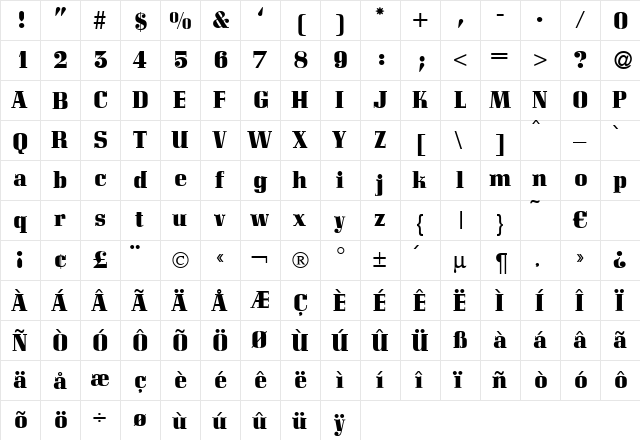
CorvetteDB Bold Font Preview
CorvetteDB Bold
CorvetteDB Bold Font Details
Design Context for CorvetteDB Typeface
CorvetteDB takes a measured approach to typography — its balanced proportions and neutral character make it a reliable workhorse for both digital and print work. Its bold stroke weight gives it real presence on the page.